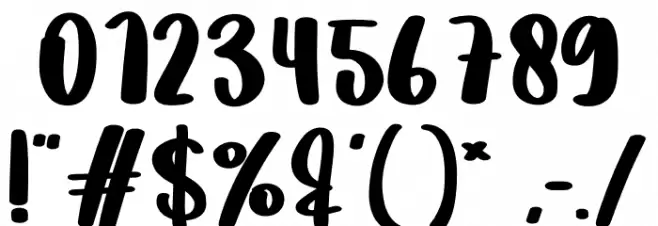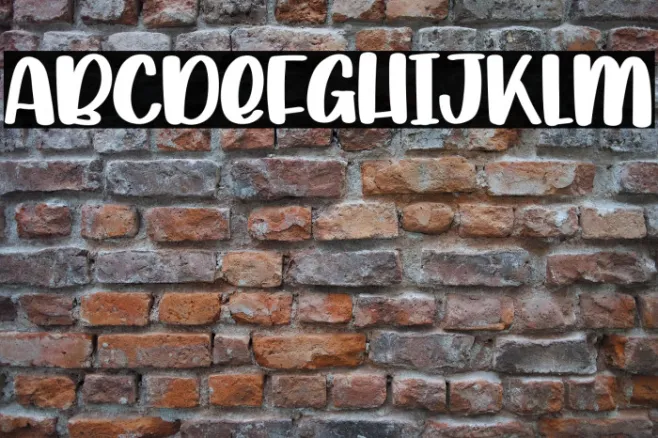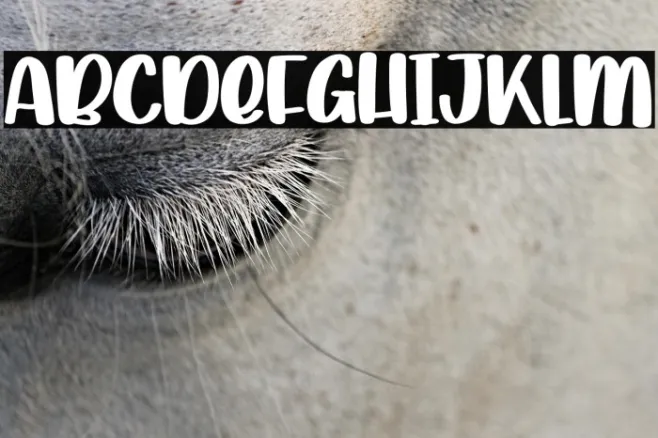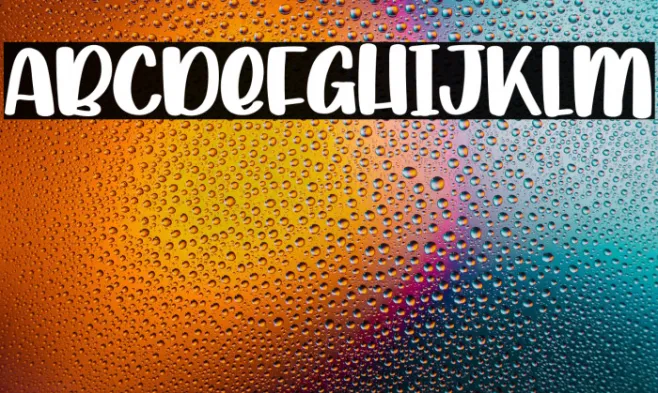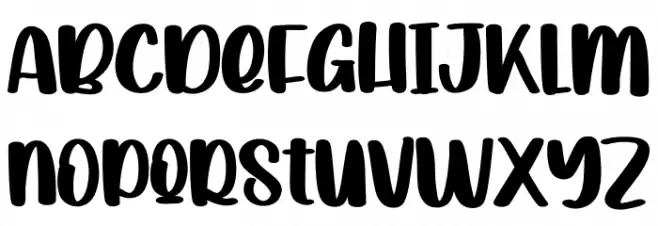
Playing Snow Font
Playing Snow Description
This font features a playful and bold handwritten style, characterized by its thick strokes and rounded edges. The letters are slightly slanted, giving a casual and dynamic feel. The uppercase and lowercase letters maintain consistent height, adding to its uniform appearance. Numbers and special characters are designed to match the playful aesthetic, making it suitable for creative and informal projects.
A bold, playful handwritten font with rounded edges and thick strokes.
- Font: Playing Snow
- Proposed Projects: Ideal for children's books, playful branding, greeting cards, and social media graphics.
- Category: Handwritten
- Overall Style: Playful